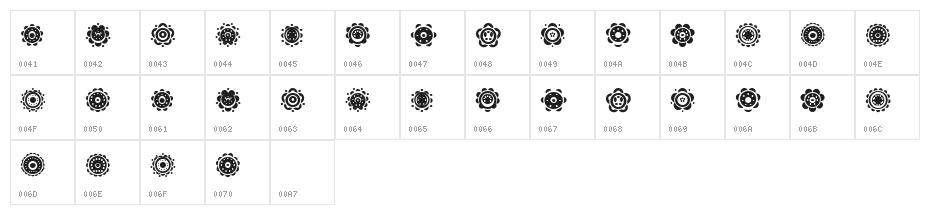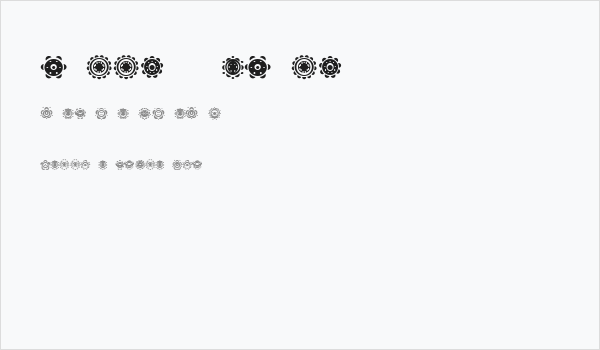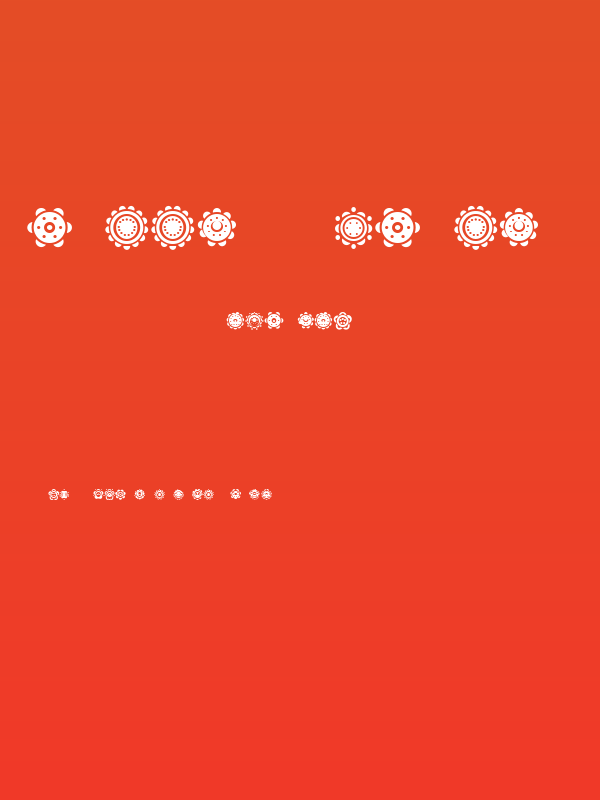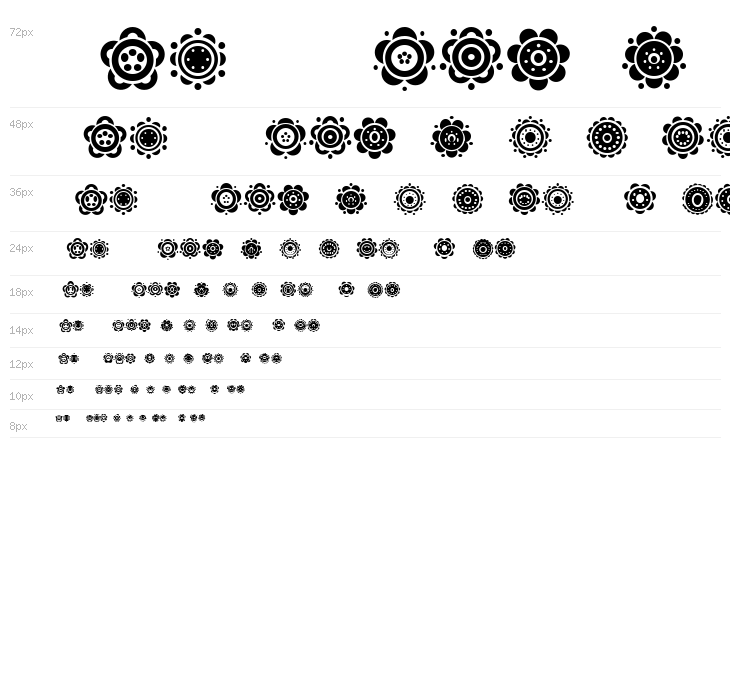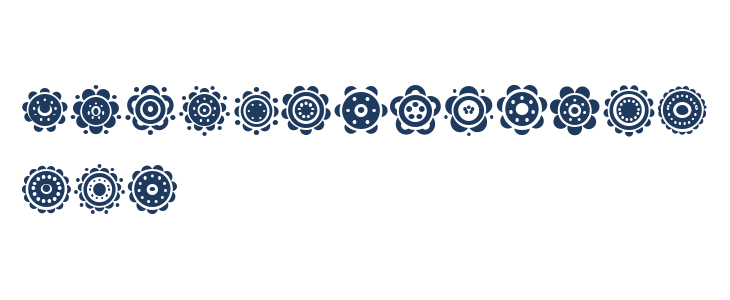
Gullar Regular Font
Gullar Regular Description
A decorative dingbat font featuring circular, floral, and mandala-like geometric shapes with bold, symmetrical patterns and dot accents. Each glyph is a unique ornamental symbol rather than a traditional letterform.
| Use Case | Decorative elements, borders, graphic design accents |
| Proposed Projects | Borders, dividers, decorative accents, invitations, scrapbooking, and graphic embellishments. |